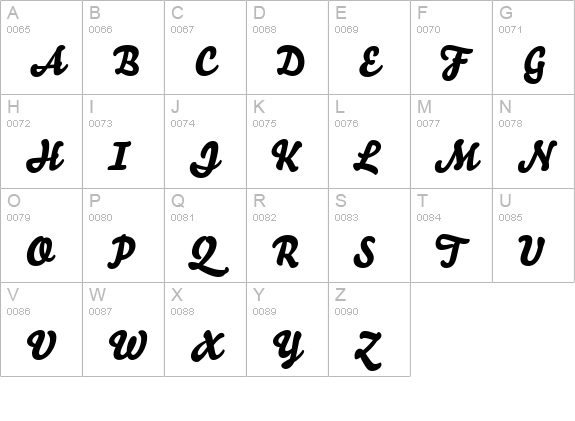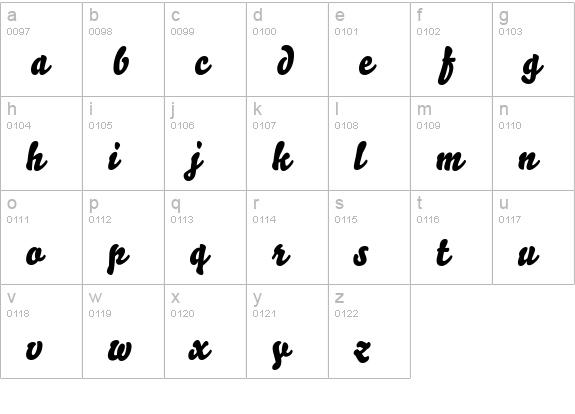
Bello Script is a stunning and elegant font that exudes sophistication and charm. With its flowing lines and graceful curves, this script font is perfect for adding a touch of luxury to any project. Whether you're designing wedding invitations, branding materials, or social media graphics, Bello Script will elevate your designs to new heights. The best part? Bello Script is available for free download at FontsMarket.com. This means you can add this beautiful font to your collection without any cost. Don't miss out on the opportunity to enhance your projects with the timeless beauty of Bello Script. Download it today and let your creativity shine!